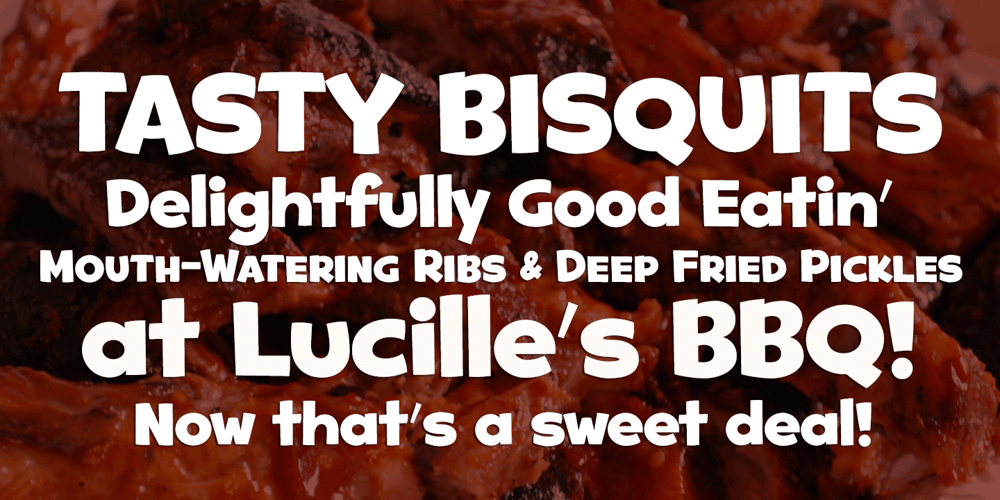
Good Eatin Pro AOE Font Family was designed by Brian J. Bonislawsky and published by Astigmatic. Good Eatin Pro AOE contains 1 styles and family package options. A heavy weight – softened sans serif that is not only friendly, but easy on the eyes. Good Eatin was inspired by the title screen from the 1942 Warner Bros. cartoon titled, “Dog Tired”. The original all capitals setting had a charming & quiet nature to it, which became even more pronounced when drawn out to include a lowercase set. Later expanded upon to include a Small Caps set, Good Eatin Pro achieves a wider, even more electric appeal. Loaded with personality, Good Eatin Pro is joyful and stands out without being an eyesore, and while being based on vintage lettering it has a contemporary feel.